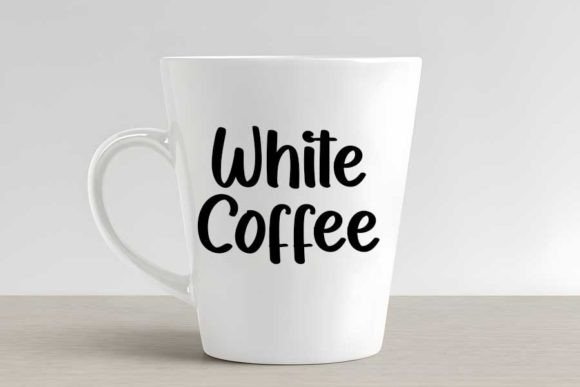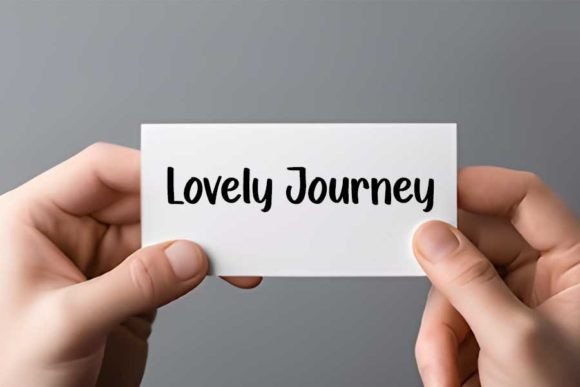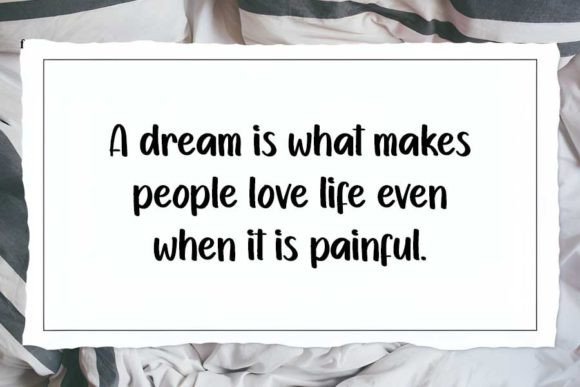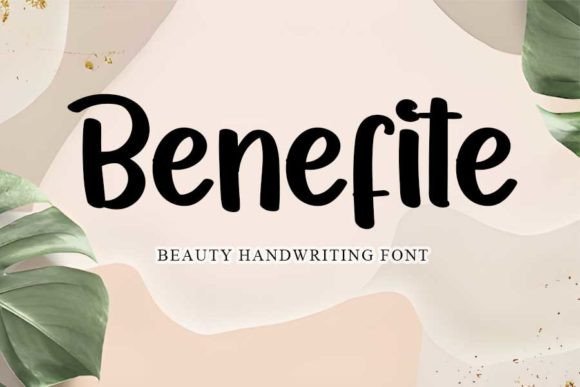
Introducing Benefite Font: The Sweet and Friendly Handwritten Font for Your Creative Projects
Are you a designer or crafter looking for a font that can add a touch of warmth and personality to your projects? Look no further than Benefite Font, a sweet and friendly handwritten font that’s perfect for a variety of creative applications. In this article, we’ll take a closer look at the Benefite Font, its features, and how you can use it to elevate your designs.
What is Benefite Font?
Benefite Font is a beautiful, handwritten font that’s designed to bring a sense of freshness and neatness to your designs. With its sweet and friendly appearance, this font is ideal for writing wedding invitations, cards, or any other design that might need a fun touch. Whether you’re a professional designer or a crafty DIY enthusiast, Benefite Font is a great choice for anyone looking to add a personal touch to their projects.
Key Features of Benefite Font
So, what makes Benefite Font so special? Here are some of its key features:
• Sweet and Friendly Appearance: Benefite Font has a warm and inviting appearance that’s perfect for creating designs that are both fun and elegant.
• Fresh and Neat: This font is designed to be clean and easy to read, making it perfect for use in a variety of creative projects.
• Handwritten Style: With its handwritten style, Benefite Font adds a personal touch to any design, making it perfect for wedding invitations, cards, and other special occasions.
• Versatile: Whether you’re designing a wedding invitation or a craft project, Benefite Font is a versatile font that can be used in a variety of creative applications.
How to Use Benefite Font in Your Designs
Now that we’ve covered the features of Benefite Font, let’s take a look at how you can use it in your designs. Here are some ideas to get you started:
• Wedding Invitations: Benefite Font is perfect for creating beautiful wedding invitations that are both elegant and fun.
• Cards and Stationery: Use Benefite Font to create personalized cards and stationery for special occasions like birthdays, anniversaries, and holidays.
• Craft Projects: Whether you’re making a scrapbook, a journal, or a craft project, Benefite Font is a great choice for adding a personal touch.
• Digital Designs: Benefite Font can also be used in digital designs, such as social media graphics, blog posts, and website headers.
Why Choose Benefite Font?
So, why should you choose Benefite Font for your designs? Here are just a few reasons:
• Unique and Personalized: With its handwritten style, Benefite Font adds a unique and personalized touch to any design.
• Easy to Read: This font is designed to be easy to read, making it perfect for use in a variety of creative projects.
• Versatile: Benefite Font can be used in a variety of creative applications, from wedding invitations to digital designs.
• High-Quality: Benefite Font is a high-quality font that’s designed to deliver exceptional results in your designs.
In conclusion, Benefite Font is a sweet and friendly handwritten font that’s perfect for designers and crafters looking to add a personal touch to their projects. With its fresh and neat appearance, this font is ideal for use in a variety of creative applications, from wedding invitations to digital designs. Whether you’re a professional designer or a crafty DIY enthusiast, Benefite Font is a great choice for anyone looking to create beautiful and unique designs.